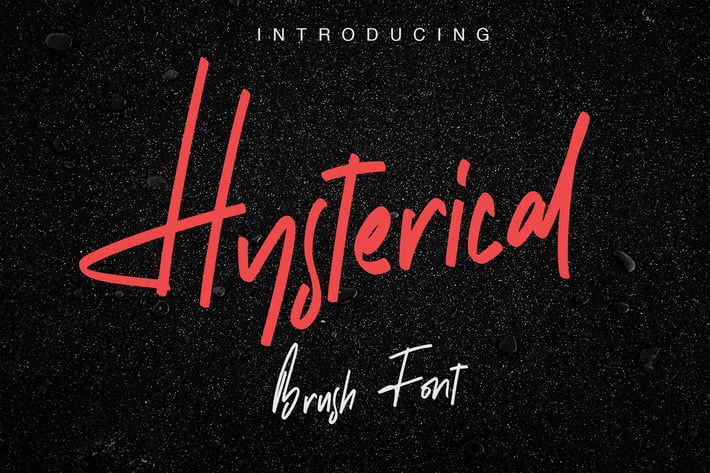
Hysterical | Brush Font
Hysterical | Brush Font with a calligraphy style, So beautiful on invitation like greeting cards, branding materials, business cards, quotes, posters, and more!